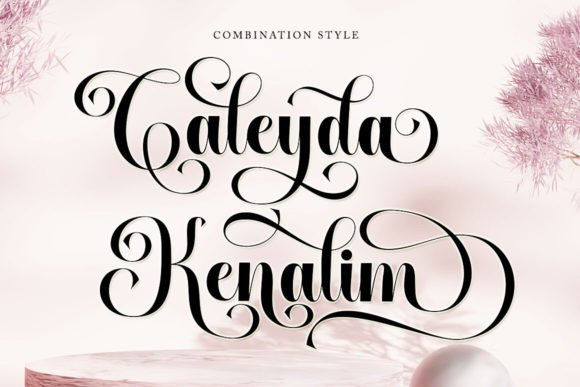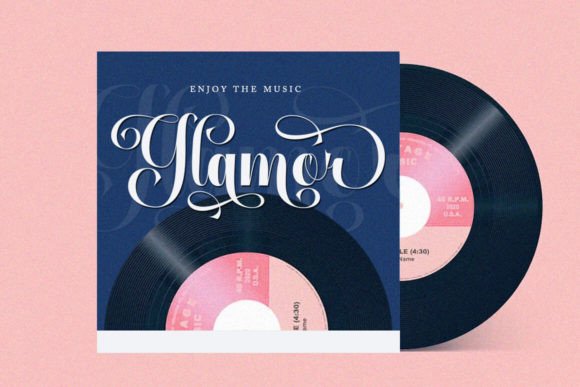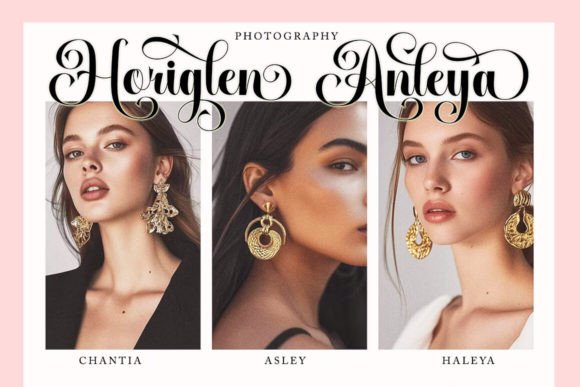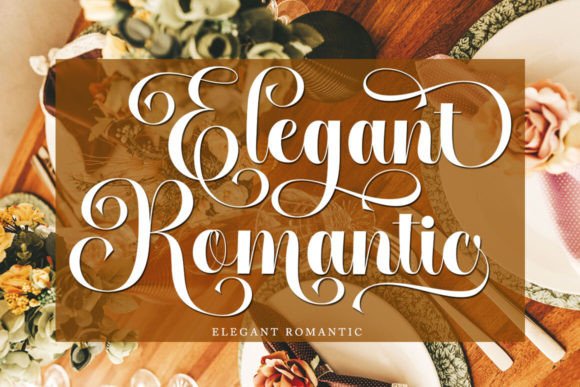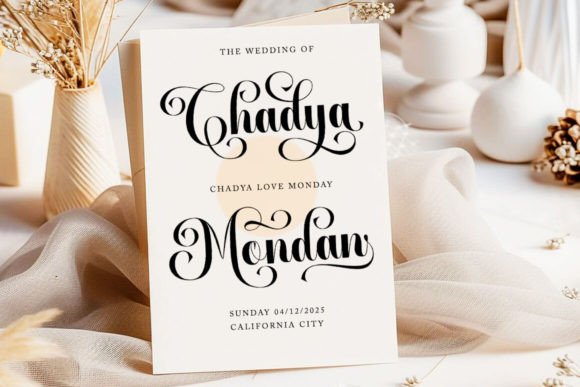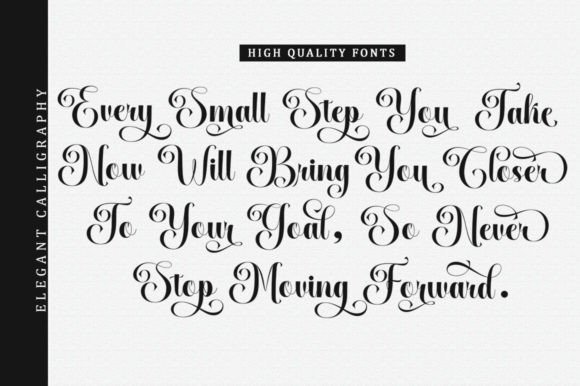
Introduction to Merry Brighty Font
Have you ever stumbled upon a font that makes you feel like you’re walking into a luxurious boutique? For me, that moment happened when I discovered the Merry Brighty Font. Its clean lines, elegant curves, and luxurious letter connections instantly caught my eye and made me want to use it for my next creative project. As a designer, I know how valuable it is to have a high-quality design resource like this at our fingertips.
Merry Brighty Font is more than just a pretty face – it’s a versatile and easy-to-read typeface that’s perfect for a wide range of applications, from formal invitations to packaging and advertising. Its transparent background makes it easy to work with, and its free download option makes it accessible to designers of all levels.
Whether you’re working on a creative project that requires a touch of glamour or just want to elevate your design game, Merry Brighty Font is an excellent choice. In this article, we’ll take a closer look at what makes this font so special and explore its many uses in design.
Key Features of Merry Brighty Font
- High-quality design resource ideal for creative projects, including invitations, greeting cards, and party decorations.
- Unique, playful design featuring a transparent background, allowing for easy layering and customization in your project.
- Available in 5 font styles, including bold, regular, and italic variations to add depth and visual interest to your design.
- Resolution-independent design ensures crisp, clear text at any size, making it perfect for large-scale applications and print materials.
- Designed specifically for use in digital and print media, including social media graphics, posters, and flyers.
Honest Review: Merry Brighty Font
As a designer, I’m always on the lookout for high-quality design resources that can elevate my creative projects. The Merry Brighty Font is one such find. I downloaded it for free, and I must say, it’s been a game-changer.
Here are some things that work well for me:
- ✨ The font’s transparent background makes it super versatile – I can use it on any design without worrying about a cluttered background.
- ✨ The font’s bold, playful vibe is perfect for creating eye-catching headings and titles.
- ⚠️ The font is not suitable for all types of projects – its playful, cursive style might not be the best fit for formal or professional designs.
- ⚠️ Some users might find the font a bit too bold or overwhelming, so be sure to use it in moderation.
Overall, I’m really impressed with the Merry Brighty Font. It’s a great addition to my design arsenal, and I’m excited to see how it’ll help elevate my creative projects. If you’re looking for a fun, high-quality font to add some personality to your designs, give Merry Brighty Font a try!
Tips for Getting the Most Out of Merry Brighty Font
Use Merry Brighty Font for headings, titles, and other prominent text elements to add a creative touch to your design. Experiment with different font sizes and colors to create a visually appealing design. You can also combine Merry Brighty Font with other design elements to create a unique and eye-catching design.
Merry Brighty Font is a versatile design resource that can be used for a variety of creative projects, including business cards, brochures, posters, and social media graphics. Its high-quality design and transparent background feature make it a great choice for graphic designers and non-designers alike.